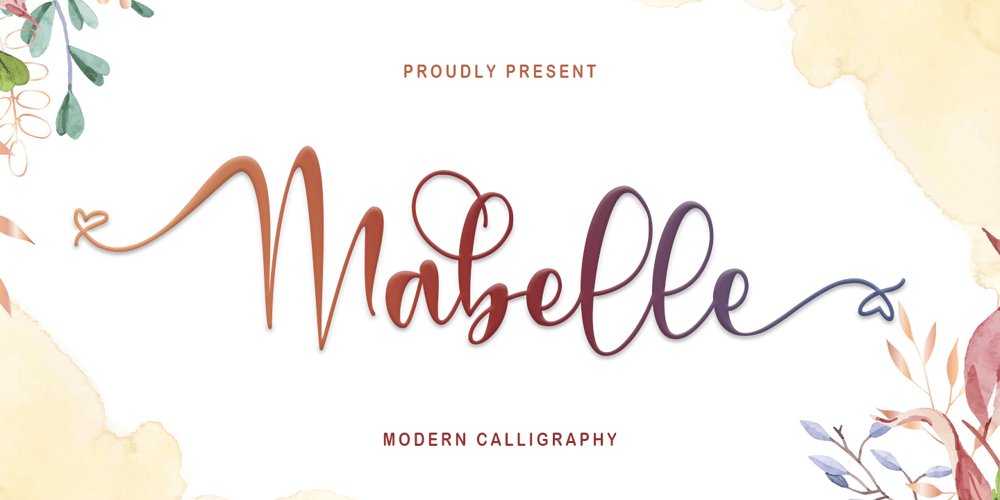
Mabelle
Mabelle font
Mabelle Font Family was designed by Thomas Aradea and published by Letterara. Mabelle contains 2 styles and family package options. Mabelle is a romantic and festive handwritten font with a beautiful love. It is ideal for holiday-themed greeting cards, Christmas, weddings, and any crafting project that requires a romantic touch. This font is PUA encoded which means you can access all of the glyphs and swashes with ease!